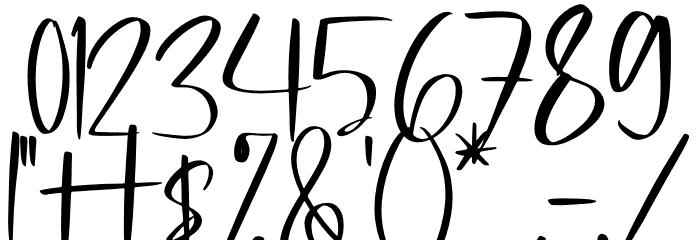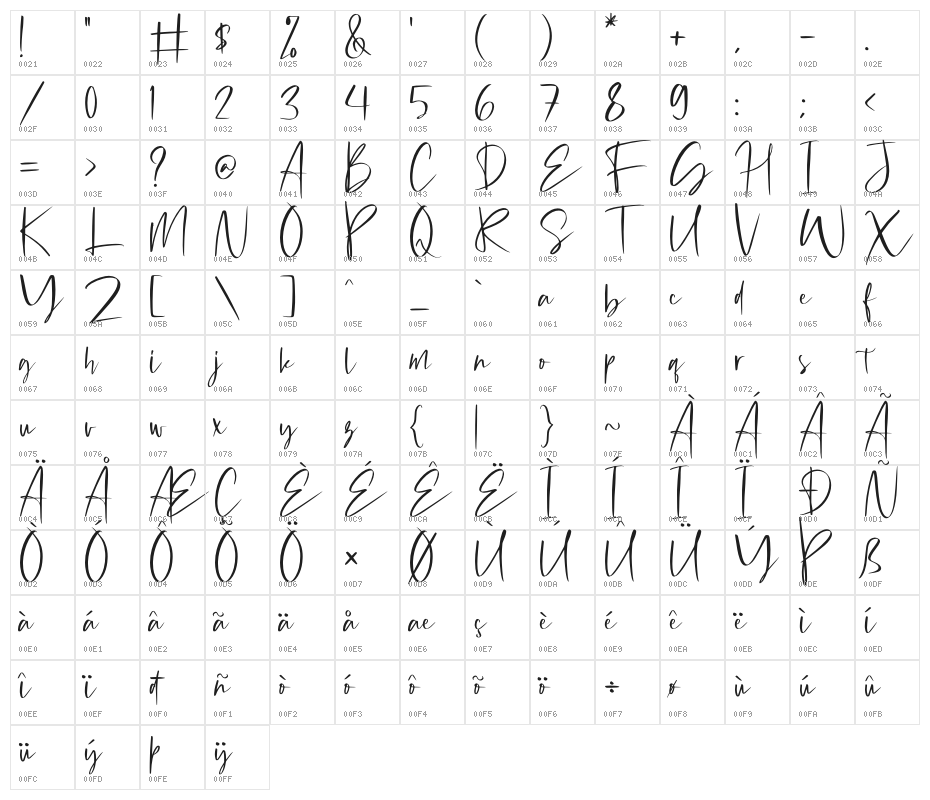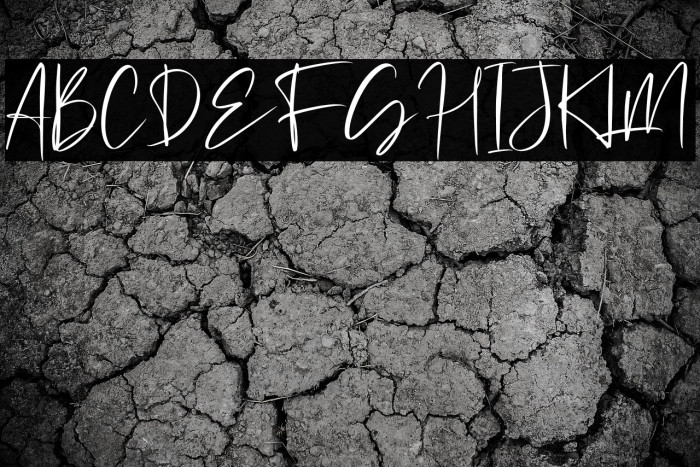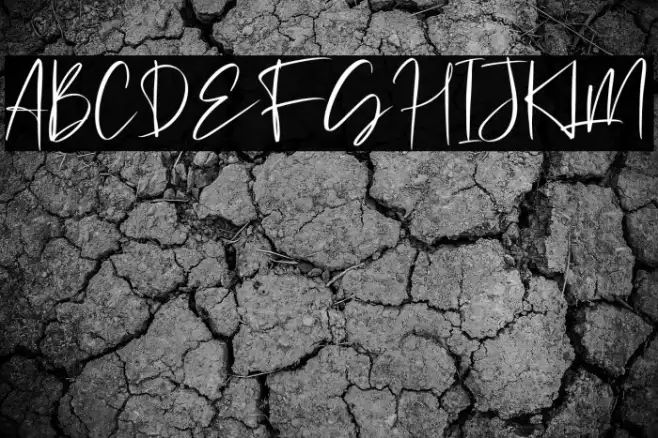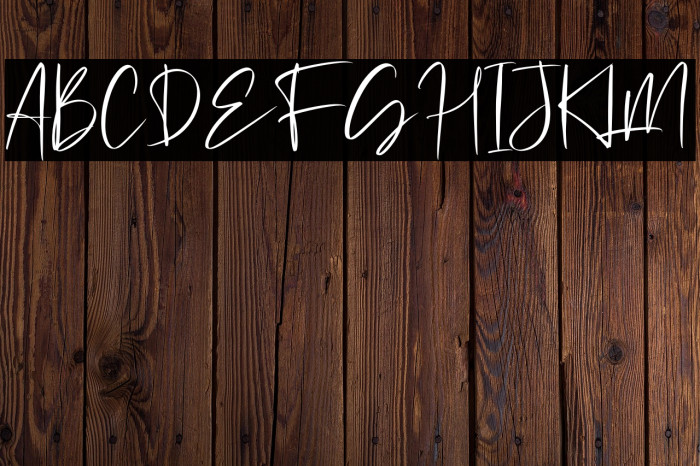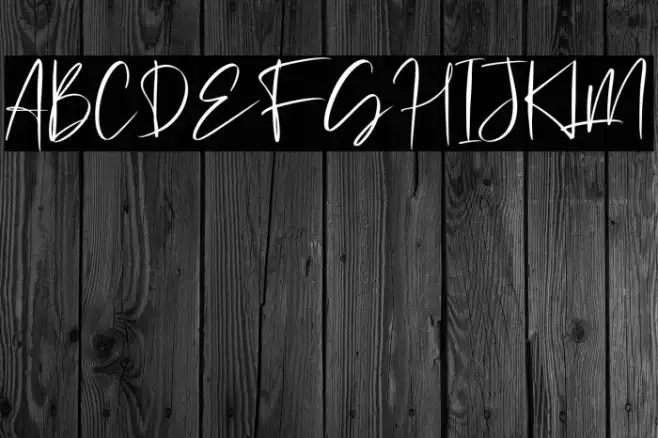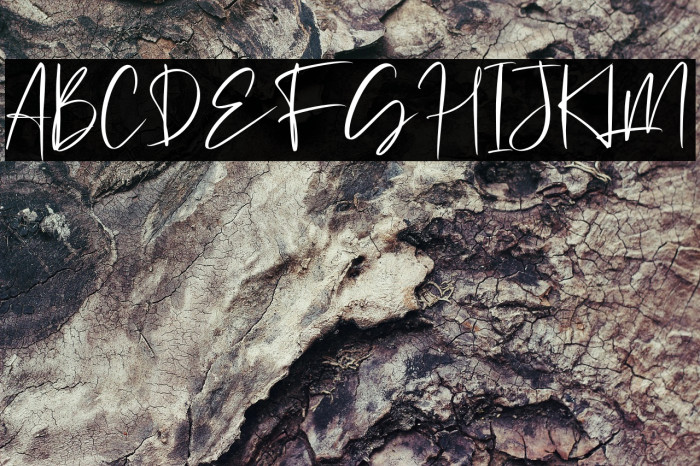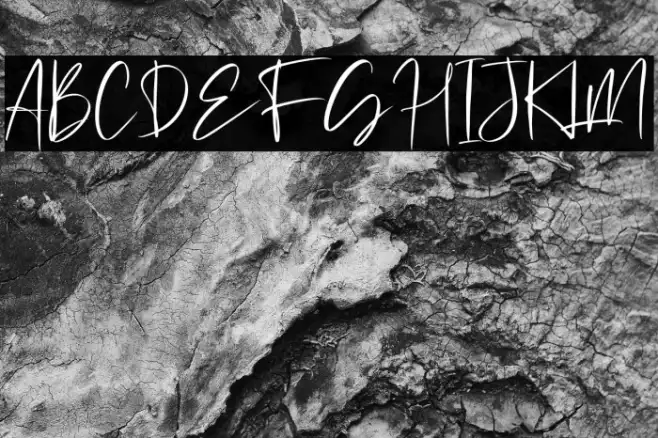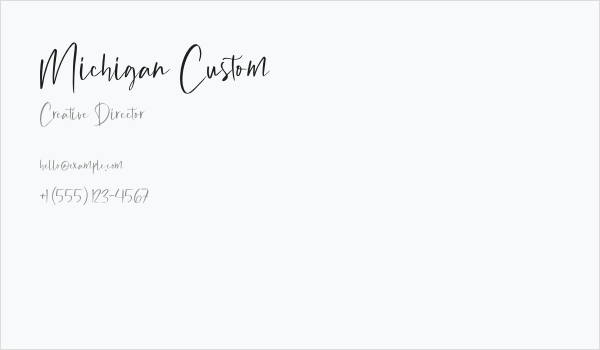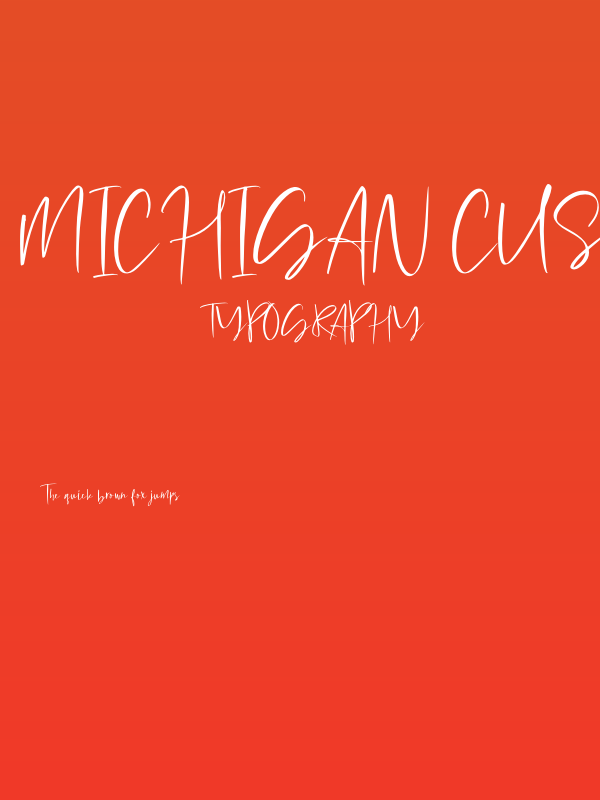
Michigan Custom Font
Michigan Custom Description
This font features a dynamic and expressive handwritten style, characterized by its fluid and organic strokes. The uppercase letters exhibit a playful and energetic flair, with varying heights and angles that create a sense of movement. The lowercase letters maintain a consistent flow, enhancing the overall cohesiveness of the design. Numbers and special characters are crafted with the same lively spirit, ensuring versatility across different uses. The font's informal yet stylish appearance makes it ideal for projects that require a personal touch or a creative edge.